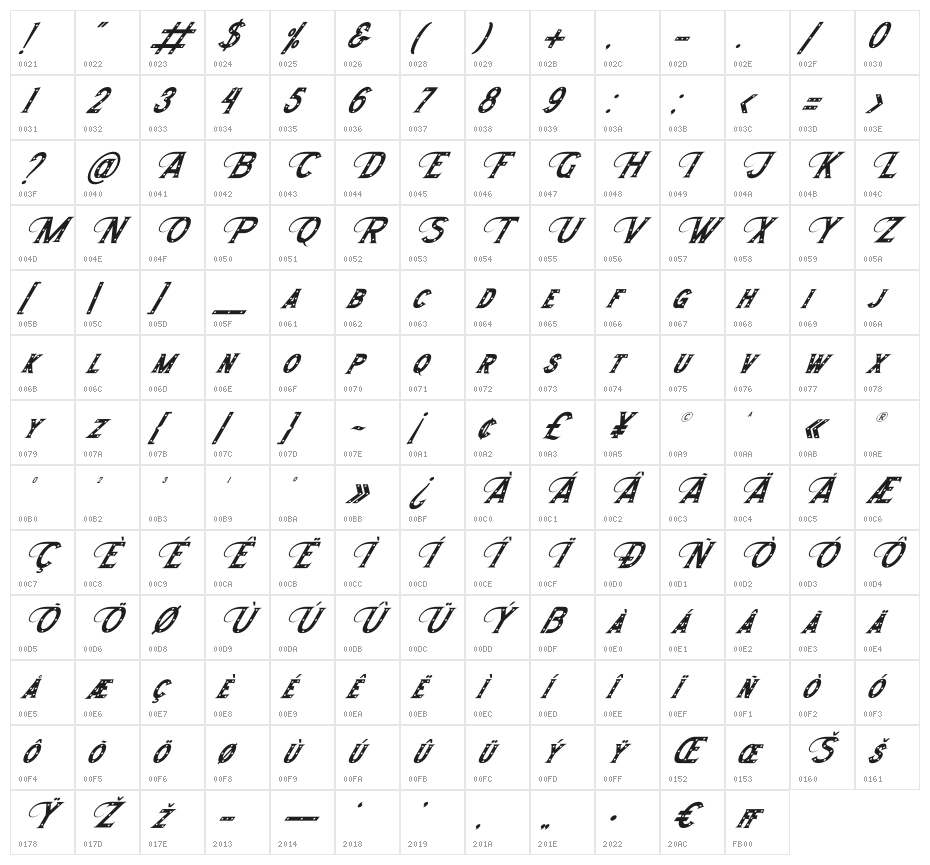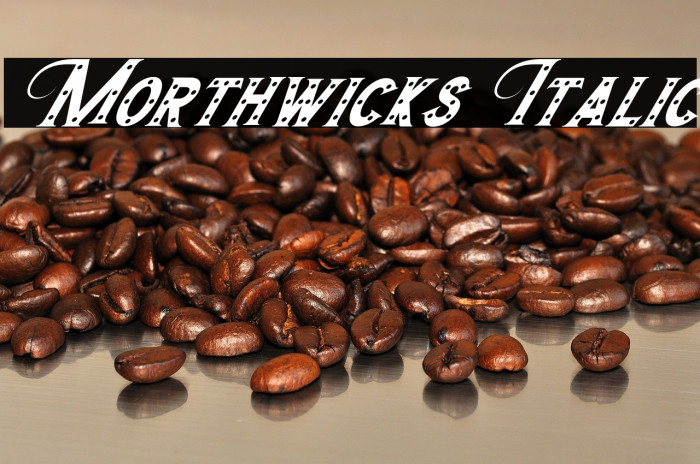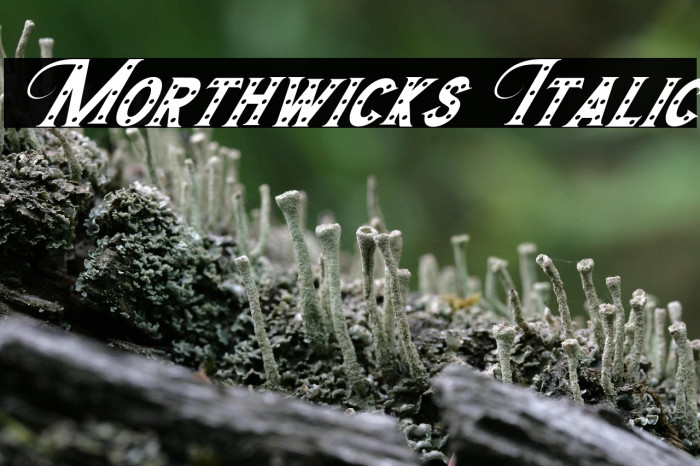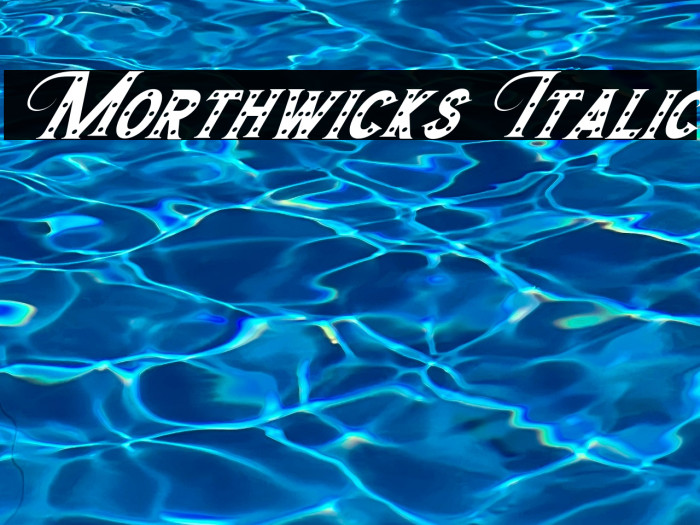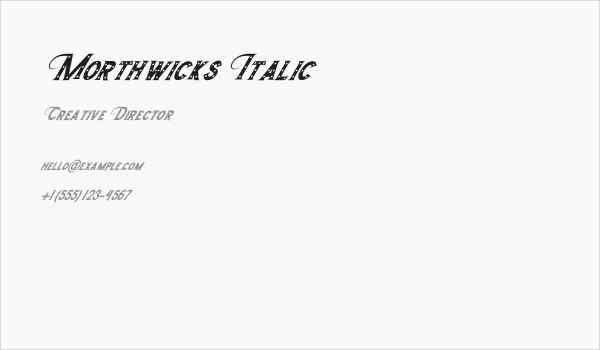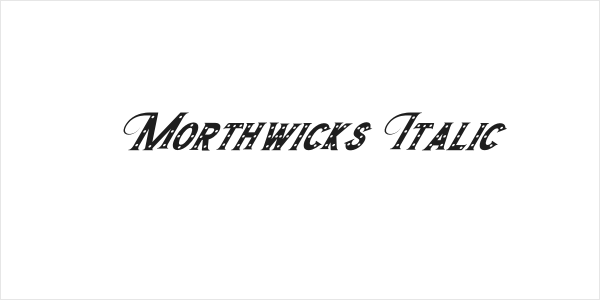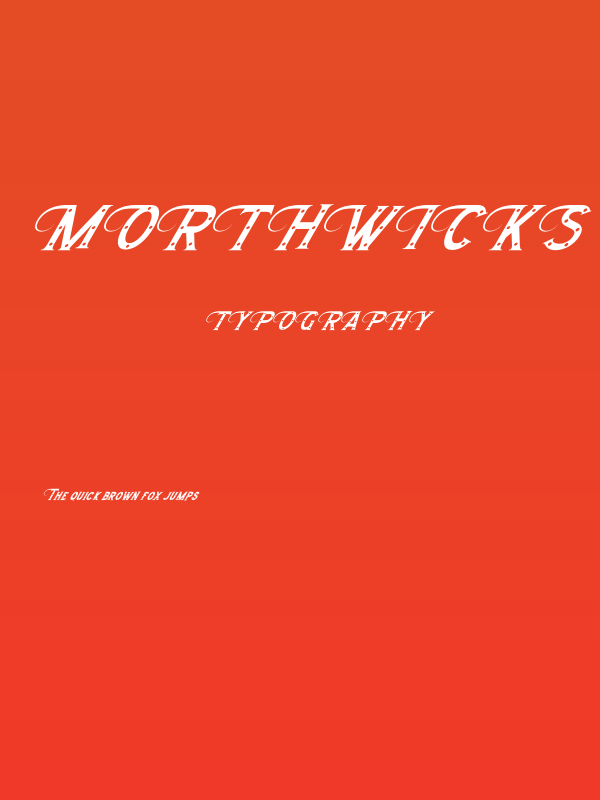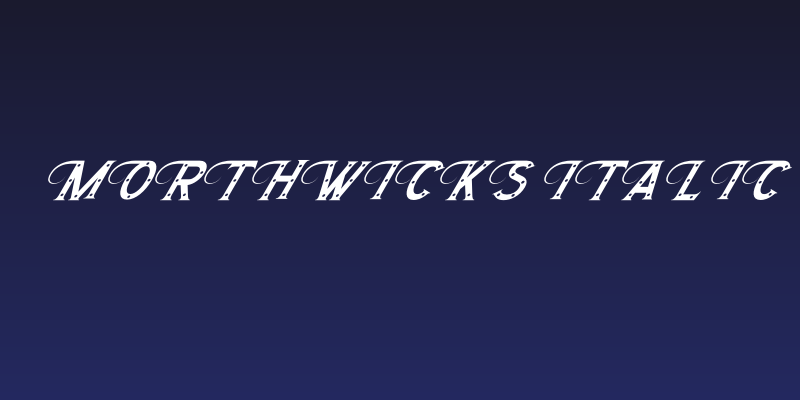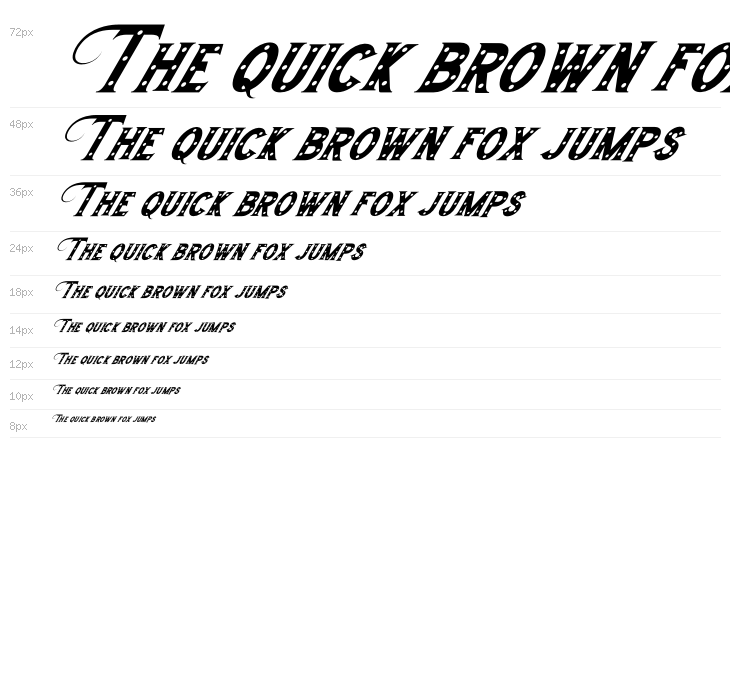
Morthwicks Italic Font
Morthwicks Italic Description
This font features a bold and dynamic design with a distinctive italic slant. Each character is adorned with unique cut-out patterns, giving it a playful and decorative appearance. The uppercase letters are prominent and commanding, while the lowercase letters maintain the same decorative style. The numerals and special characters follow the same bold and embellished design, ensuring consistency across all elements. The font's style is eye-catching and suitable for projects that require a strong visual impact.
Morthwicks Italic